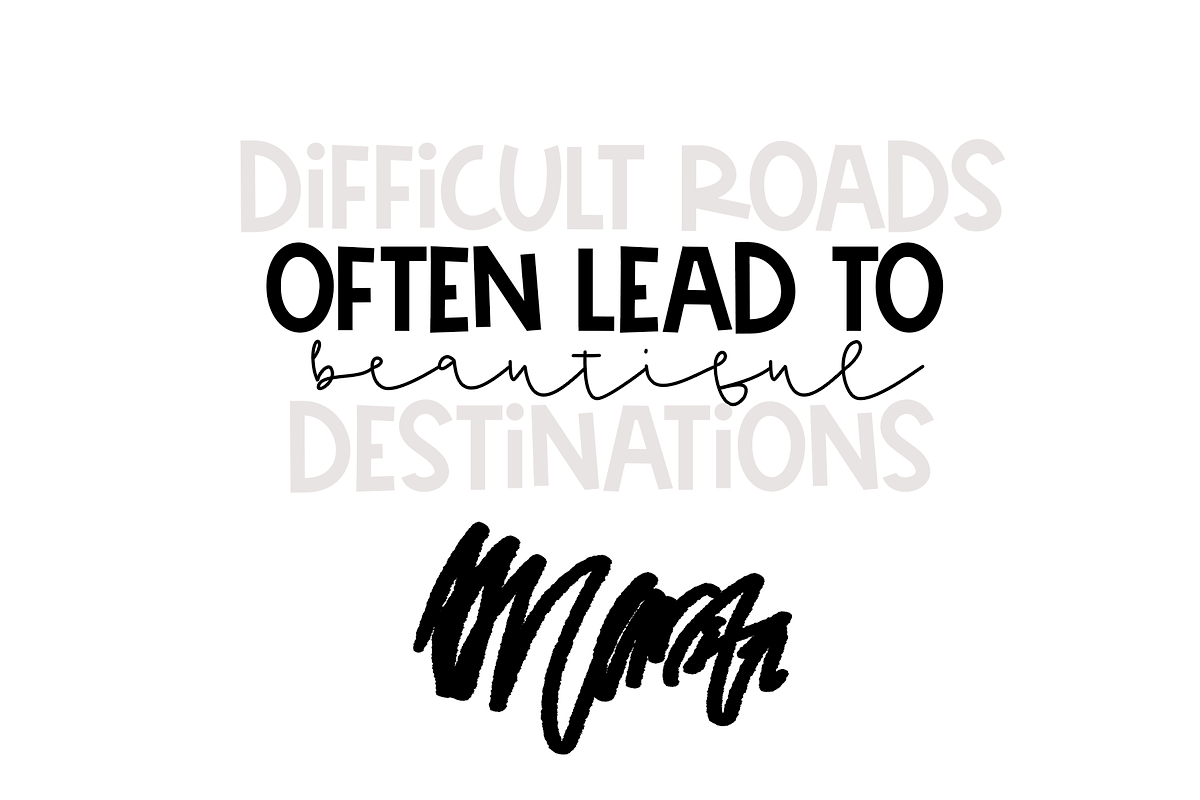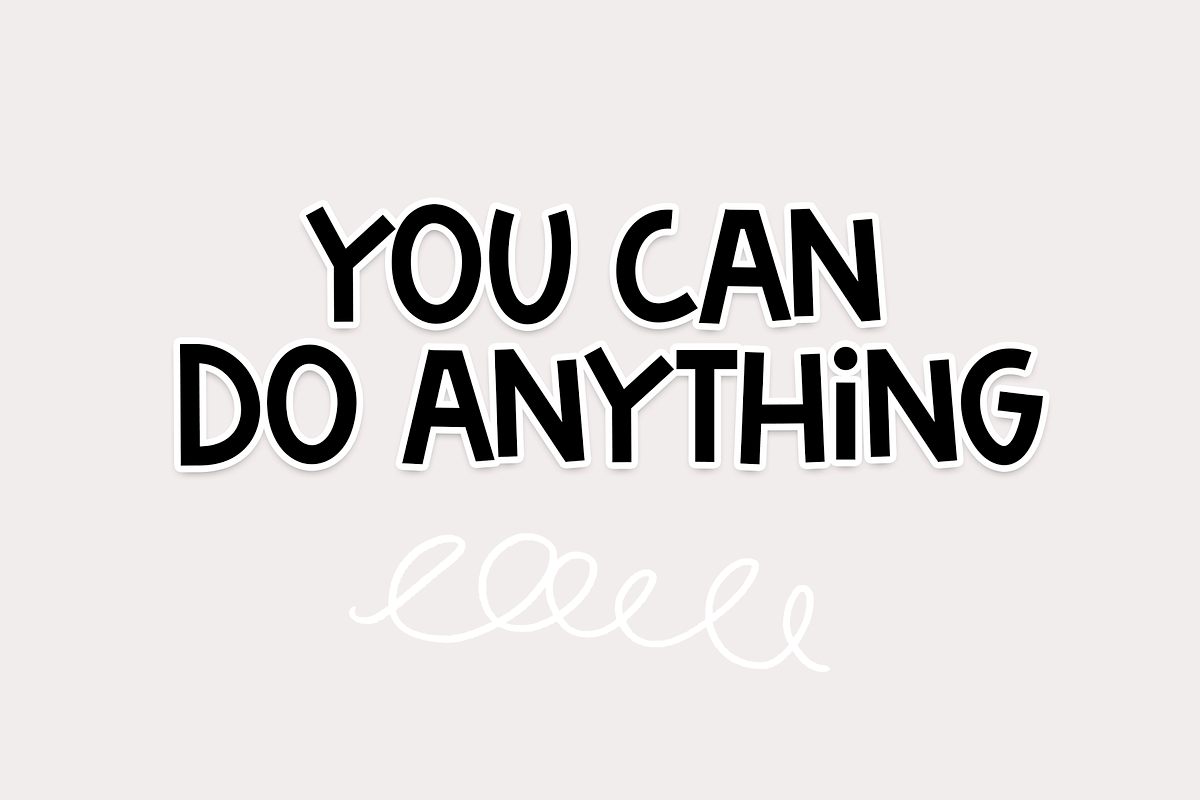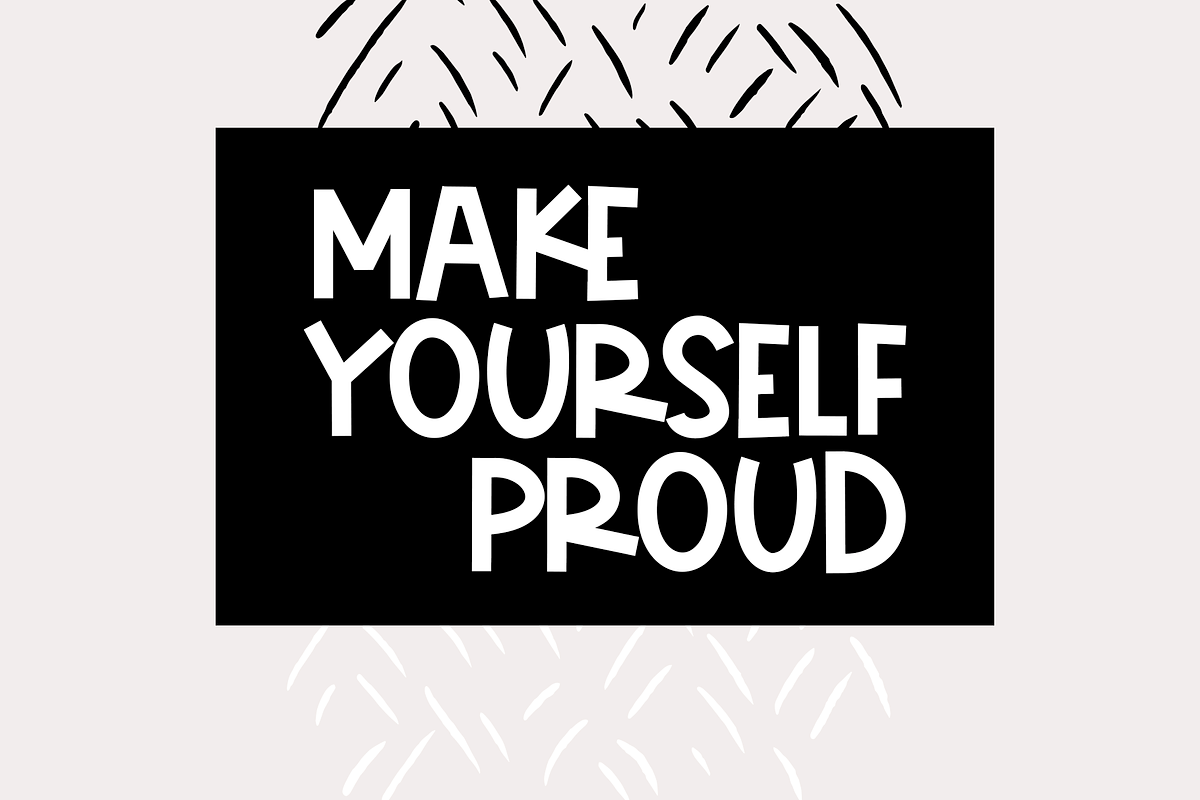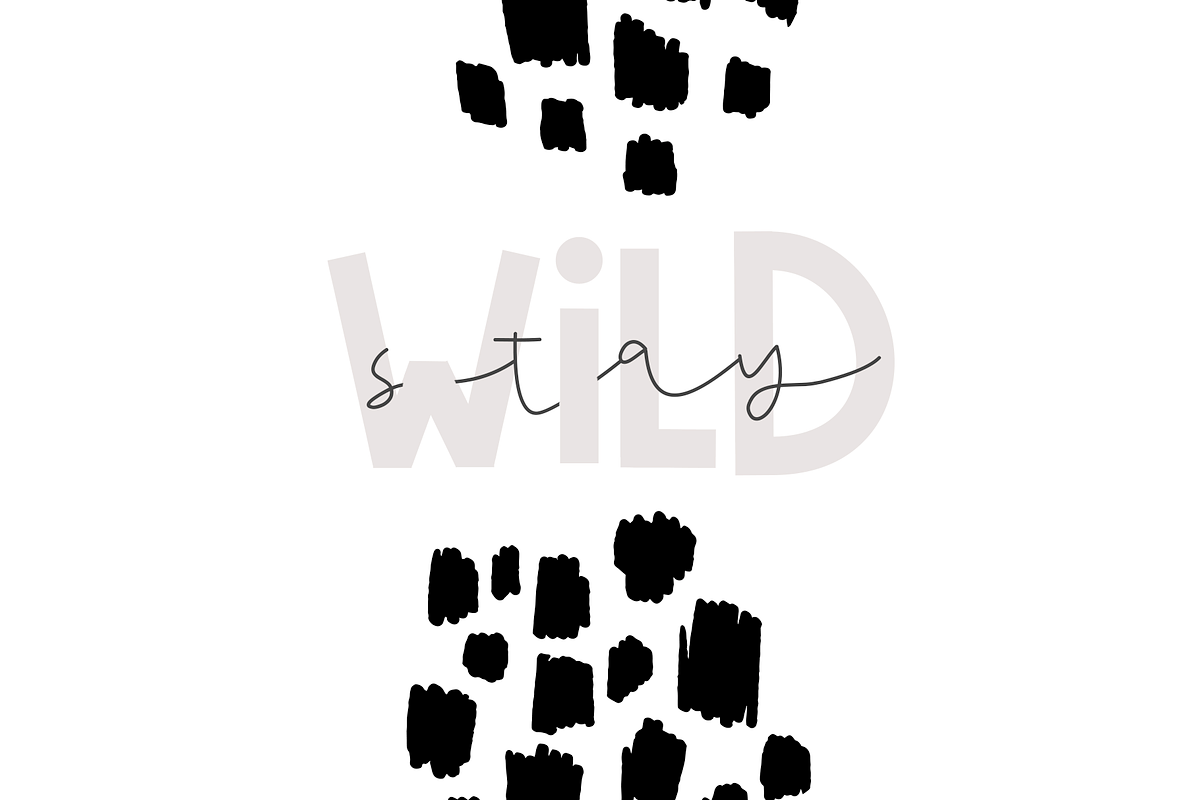
Friendship - A Cute Handwritten Font
Friendship is a bold & cute handwritten font.
The capital and lowercase letters are the same with the exception of the letter 'I' and spacing between the characters.
This font is perfect for quotes, headings, blogs, logos, invitations and more!
- The capital and lowercase letters are the same with the exception of the letter 'I' and spacing between the characters.